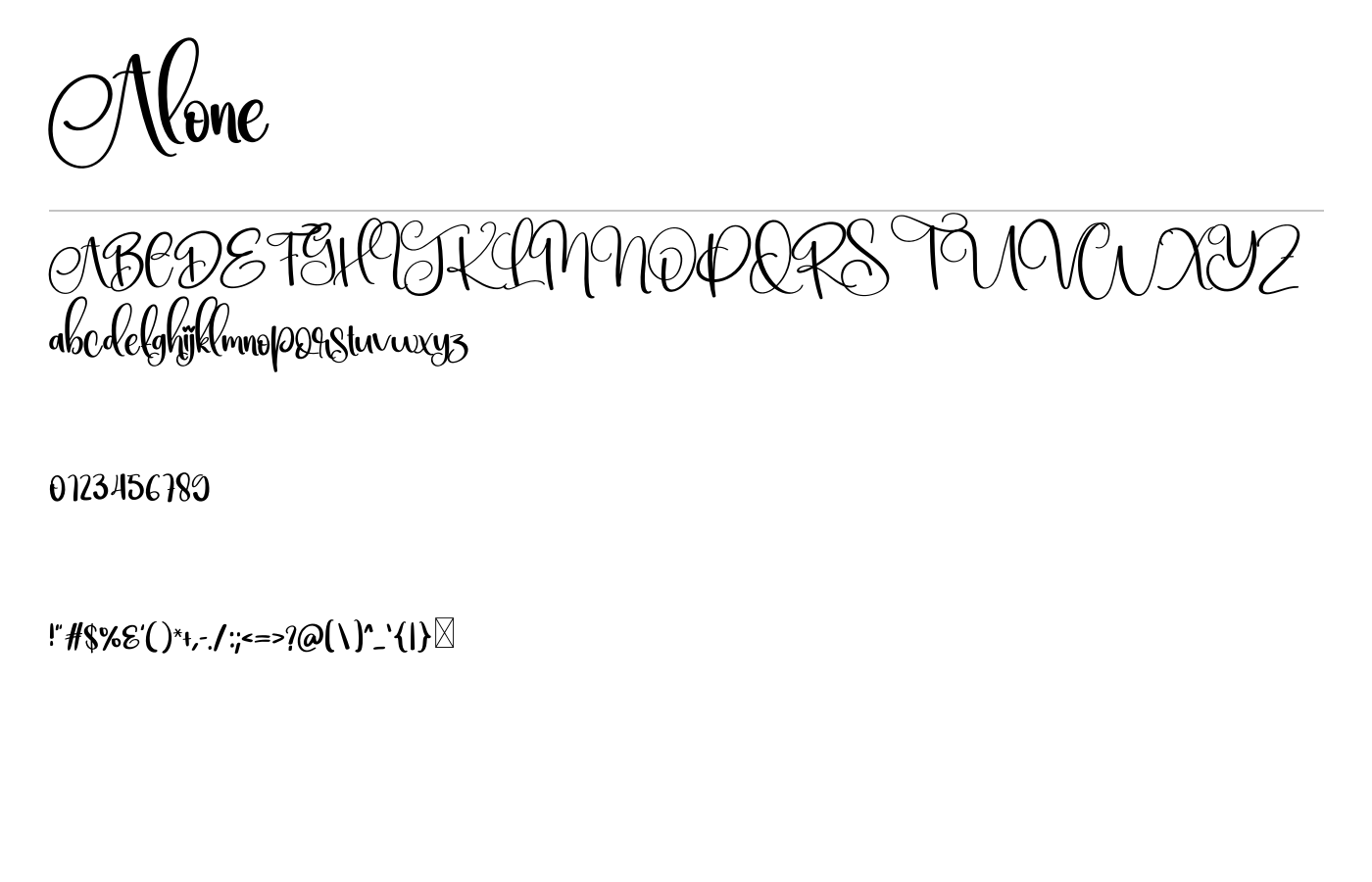
Alone Font is an elegant script typeface featuring delicate, flowing lines and ornate swashes that create a graceful and artistic feel. Its thin strokes and decorative loops make it ideal for stylish invitations, logos, and branding that seek a sophisticated and personal touch. This font works best in large sizes where its intricate details can shine, adding a charming and romantic vibe to any design.
Alone Font